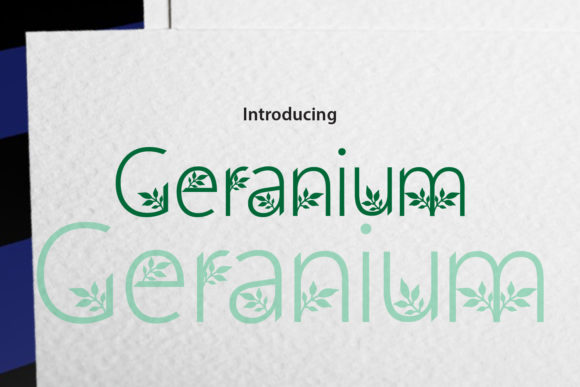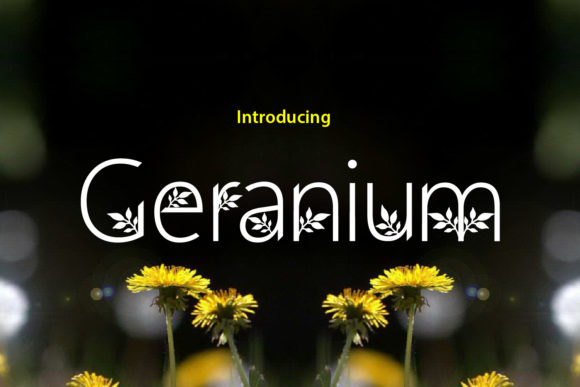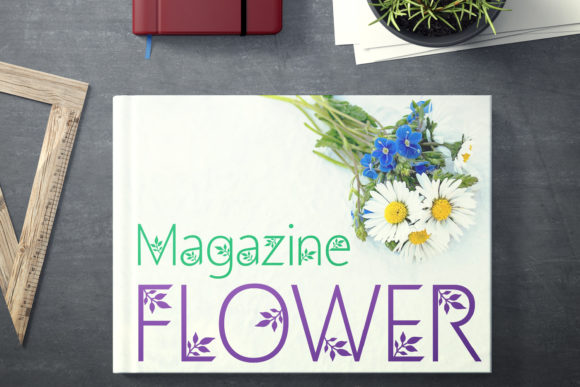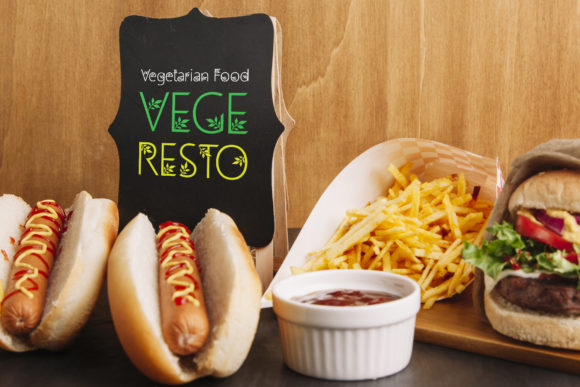
Geranium Font: A Decorative & Botanical Display Font!
About the Geranium Font
Welcome to the world of Geranium Font, a typeface that will inspire your next great project. Geranium is a friendly decorative font with a plant-based style. It is perfectly suited for a wide variety of projects!
Geranium’s friendly, organic forms make it ideal for projects needing a touch of whimsical charm. It excels in headlines, short text blocks on packaging, and signage where its decorative nature adds visual interest. Consider it for branding related to nature, crafts, or children’s products. Avoid using Geranium for body text or lengthy paragraphs; its decorative style can become visually overwhelming and difficult to read at smaller sizes.
For optimal visual harmony, pair Geranium with a clean sans-serif like Open Sans for body copy, providing a strong contrast and enhancing readability. Alternatively, a classic serif font such as Garamond can add a touch of sophistication, balancing Geranium’s playful energy with a sense of refined elegance. Avoid pairing it with other highly decorative fonts, which could create visual clutter.
Its core personality is cheerful and approachable, conveying a sense of warmth and approachability.